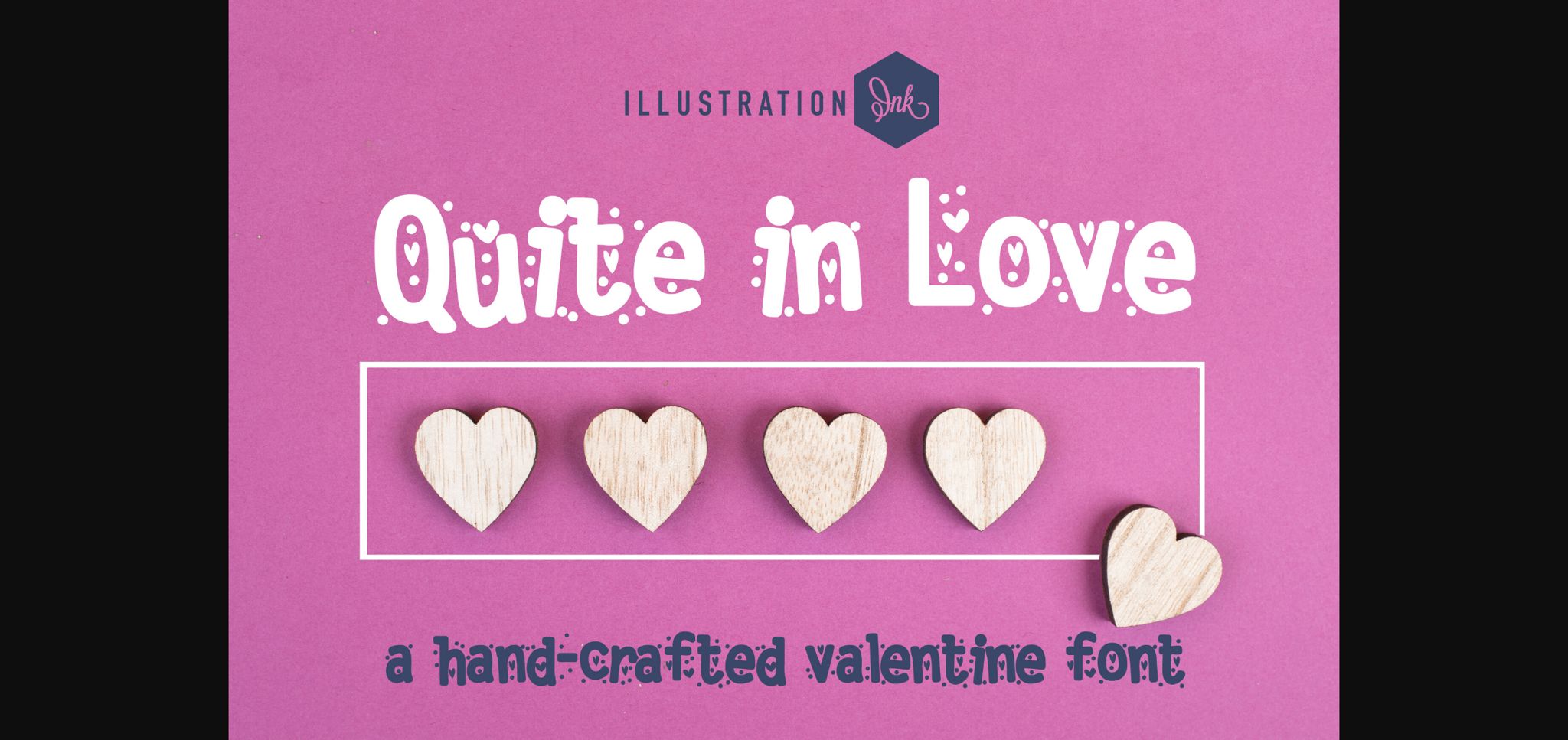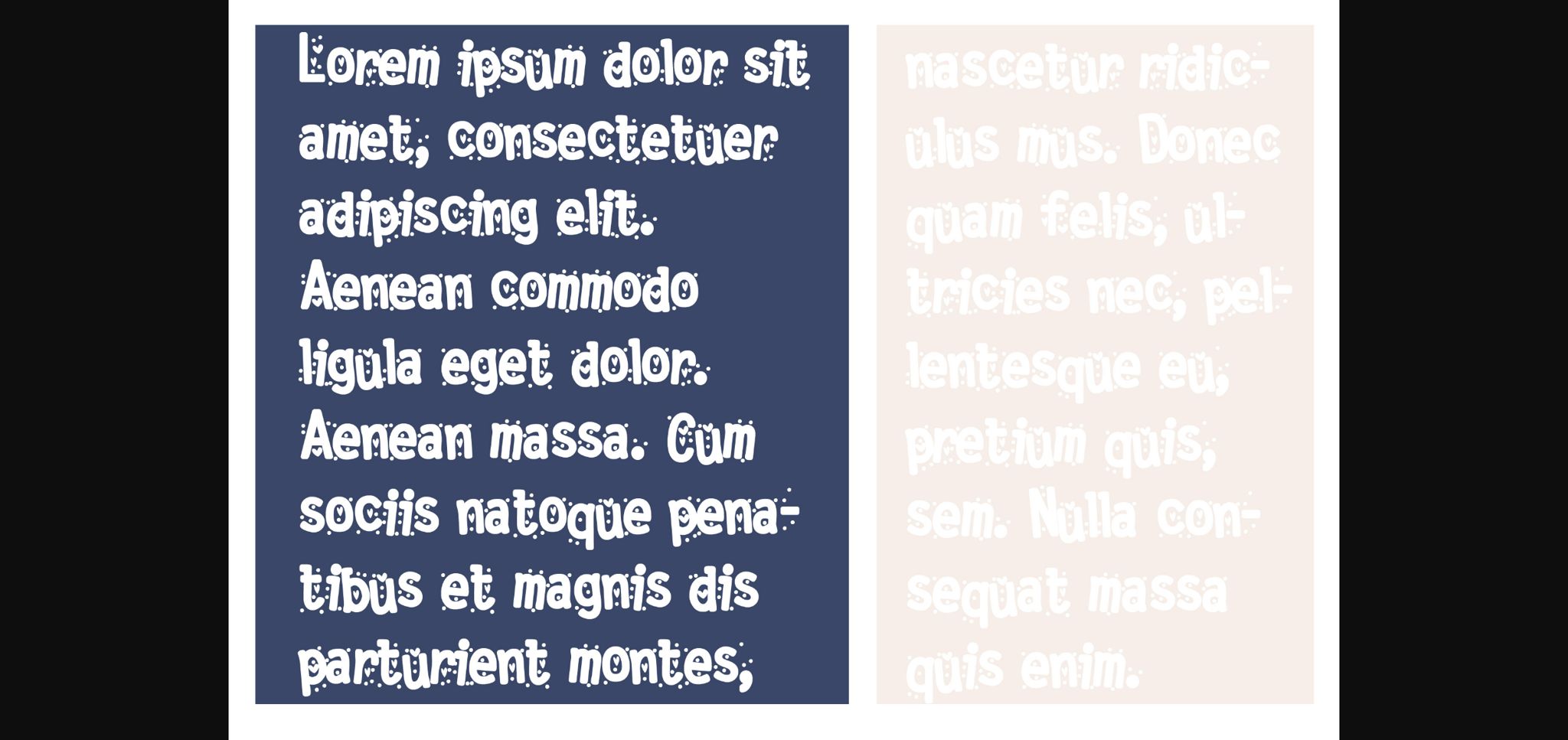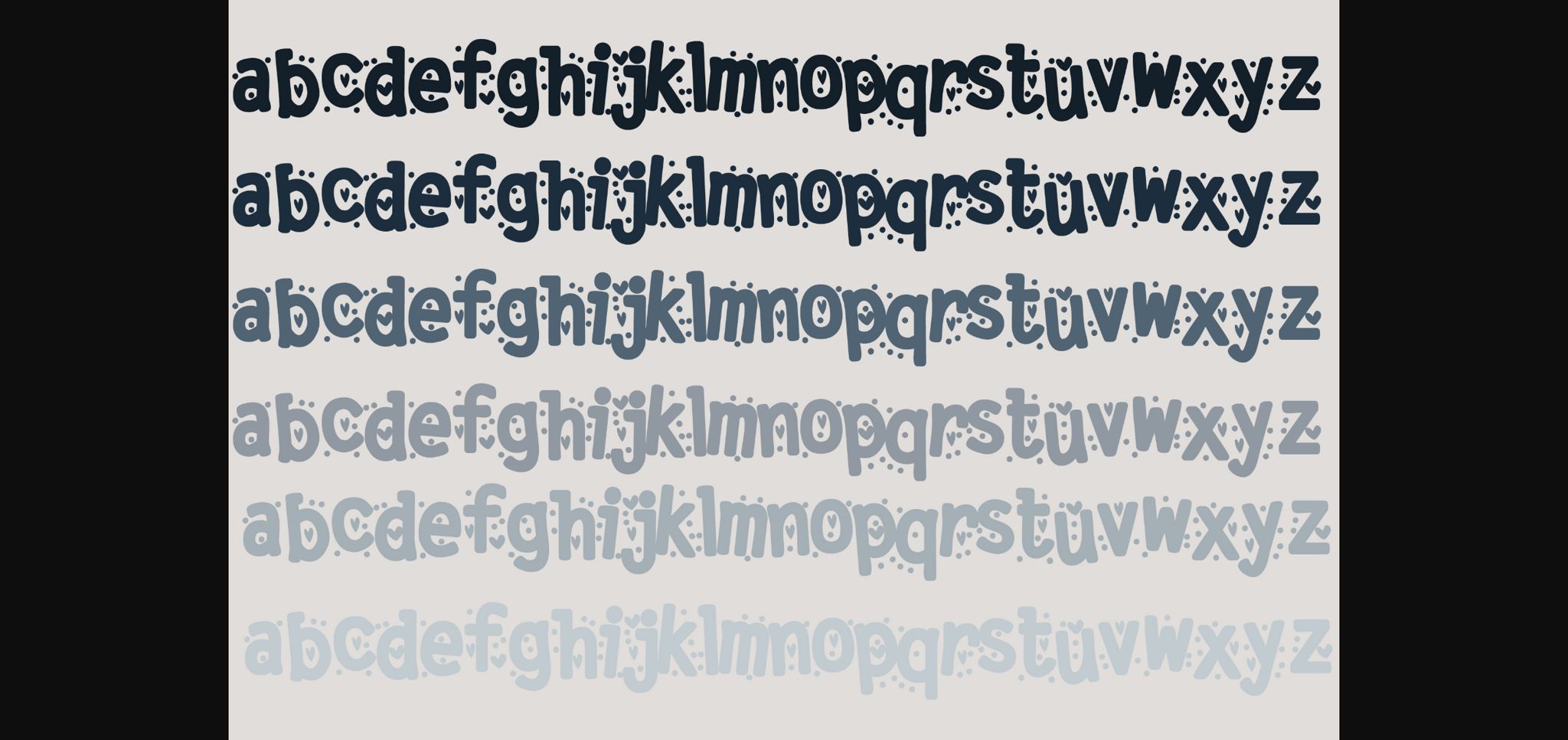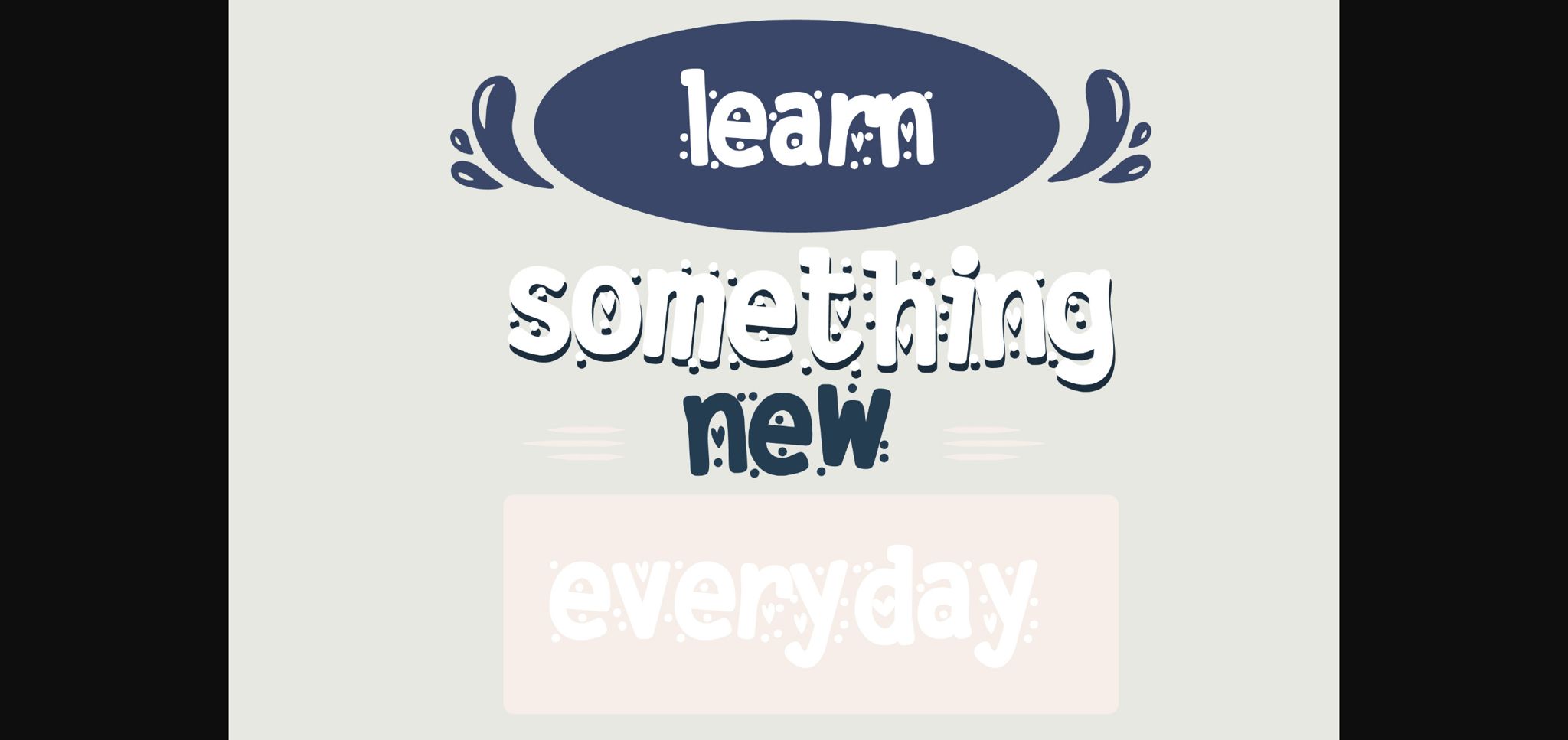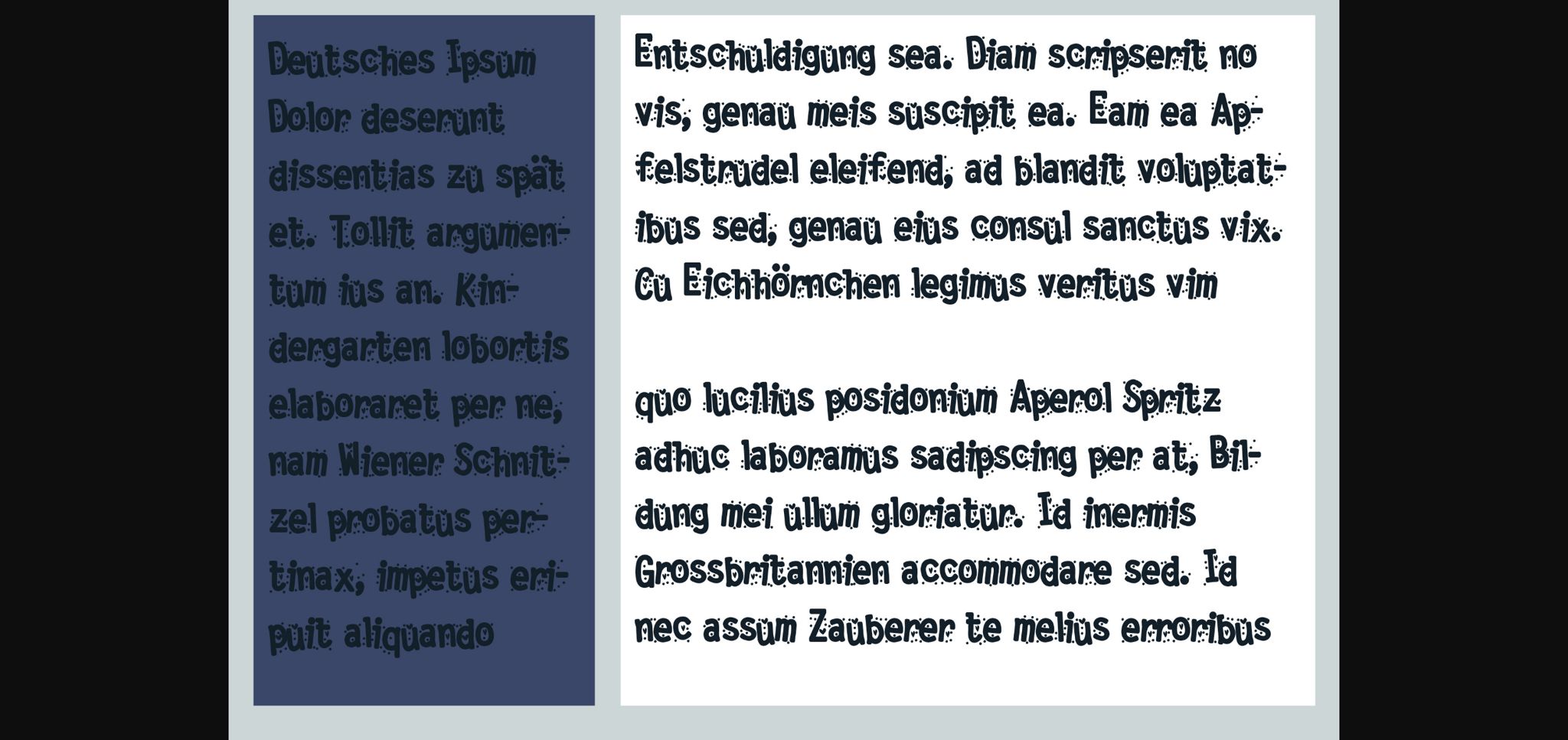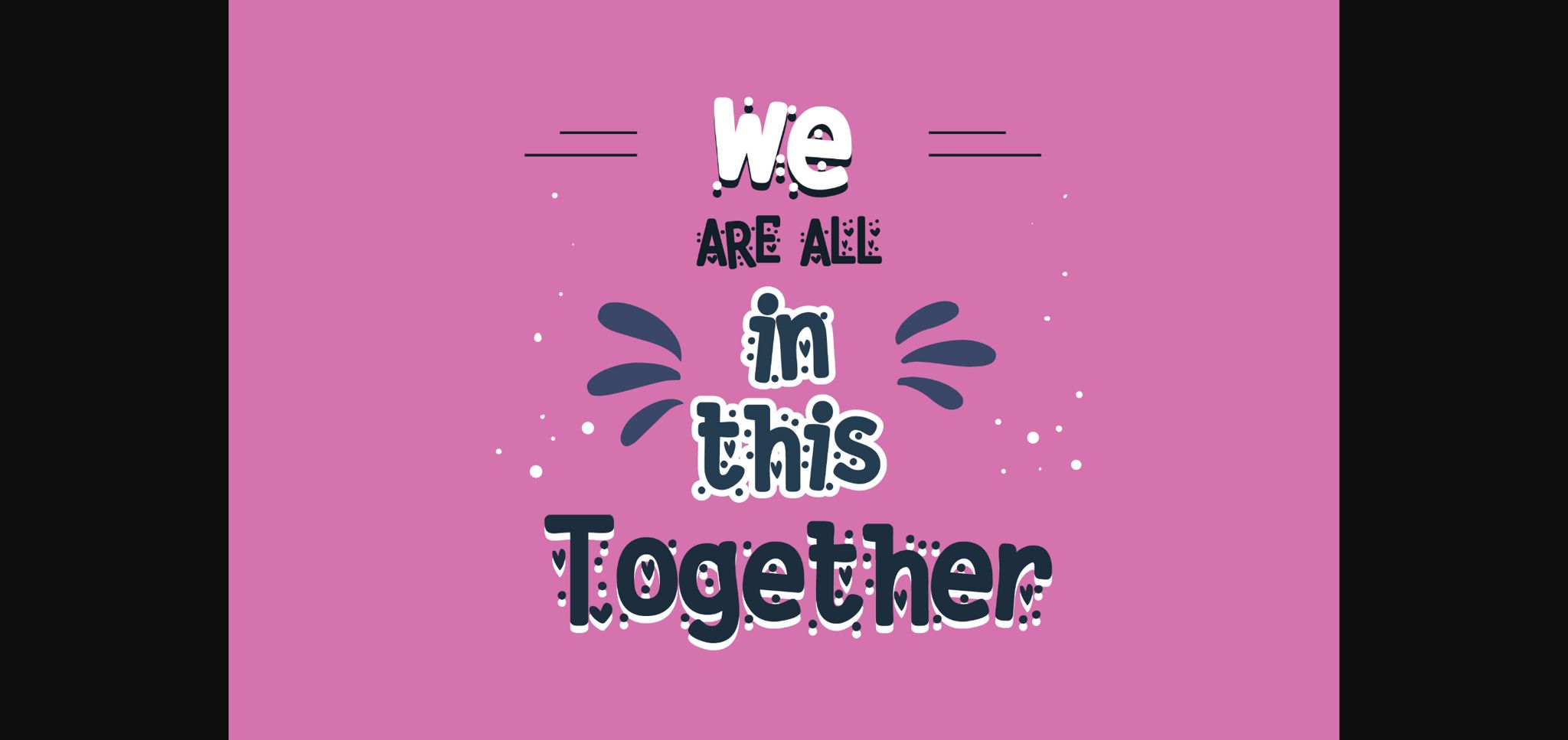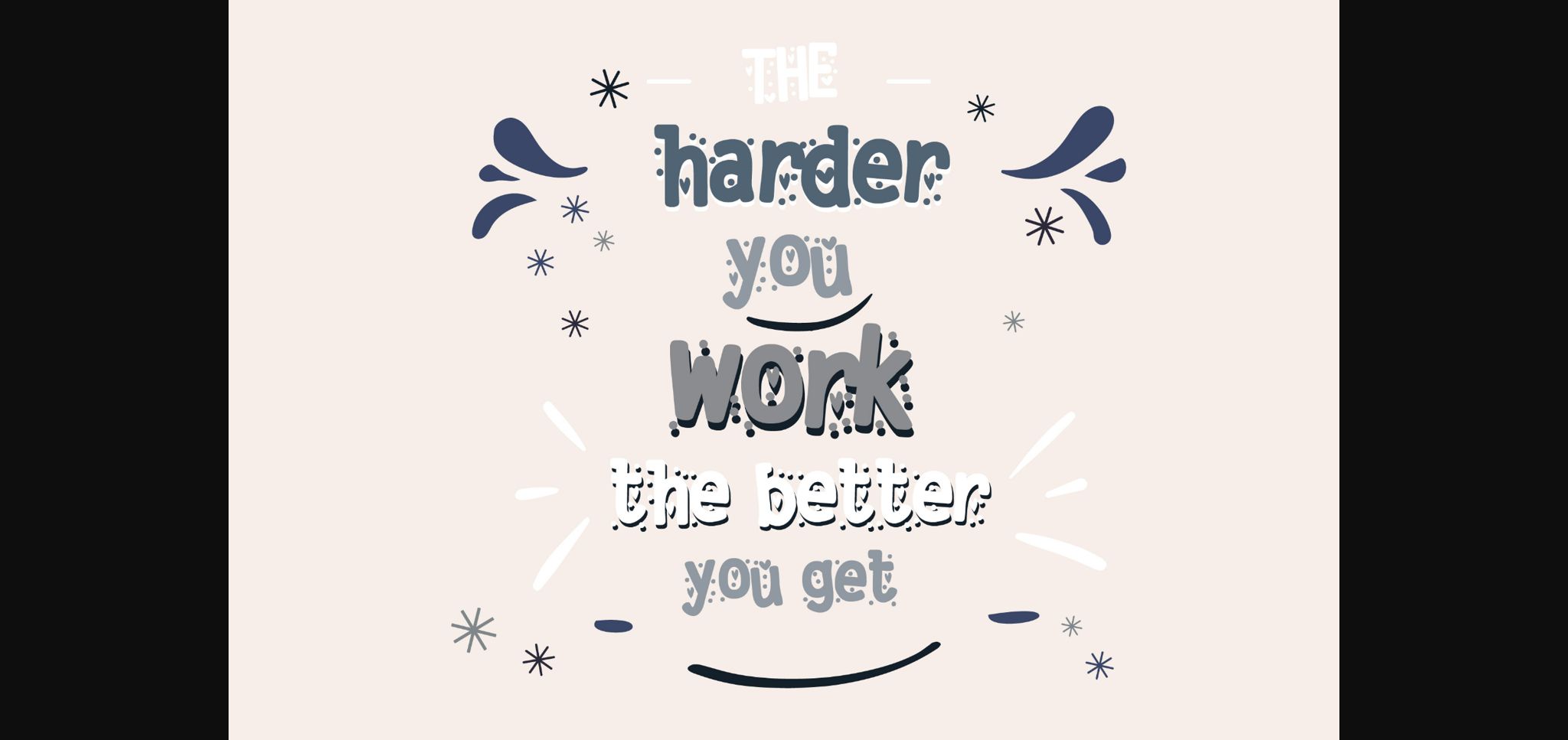
HomeSans Serif FontsQuite in Love Font Sans Serif Fonts Quite in Love Font FacebookXPinterestWhatsApp 1 of 9 ... Quite in Love Font Poster 2... Quite in Love Font Poster 3... Quite in Love Font Poster 4... Quite in Love Font Poster 5... Quite in Love Font Poster 6... Quite in Love Font Poster 7... Quite in Love Font Poster 8... Quite in Love Font Poster 9... About Quite in Love Font This hand-crafted sans serif is an adorable print with toggled letters and hearts. No matter the topic, this font will be an incredible asset to your fonts’ library, as it has the potential to elevate any creation. DOWNLOAD NOW People also explored Angelta Font Weird Shadow Font Black Board Font Rogusta Font Jenorex Friday Font Oxydest Font Loving Cookies Font Vintage Font Quefira Script Font 268 0 TagsQuite in Love Font Previous articleWildflower Beautiful FontNext articleCampaigh Font LEAVE A REPLY Cancel reply Comment: Please enter your comment! Name:* Please enter your name here Email:* You have entered an incorrect email address! Please enter your email address here Website: Save my name, email, and website in this browser for the next time I comment. Personal Use Free Husky Stash Personal Use Free Read more about this font Fifteenth Century Personal Use Free Read more about this font Fibon Personal Use Free Read more about this font Strings Personal Use Free Read more about this font BLOG How to Cut Any Font on Cricut: Convert a Font to SVG (Free) Turn any font into a clean SVG so it cuts crisp on Cricut - a quick 3-step workflow using a free font-to-SVG tool. Exploring Font Trends Free Fonts Risk: Why Free Fonts Can Be Dangerous for Designers The 10 Best Handwriting Fonts to Add Personality to Your Designs